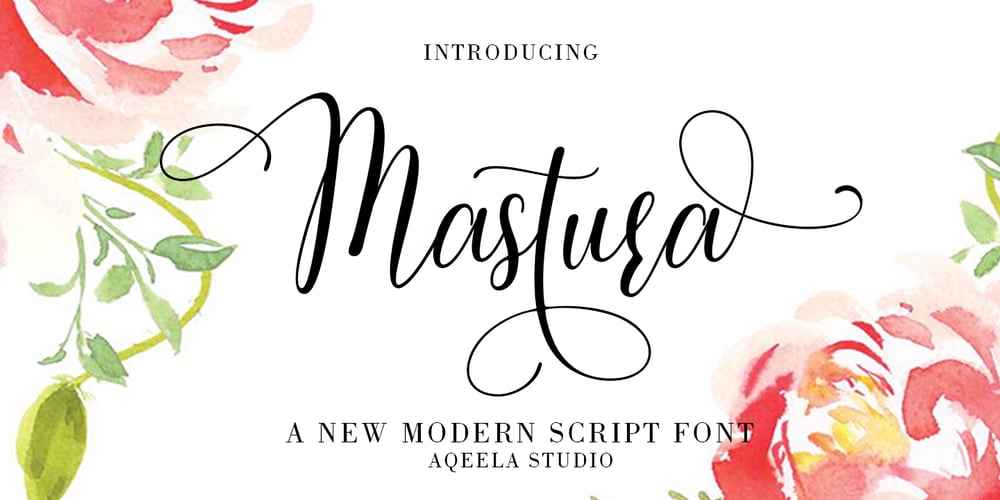
Mastura Font Family was designed by Muhammad Nasir and published by Aqeela Studio. Mastura contains 1 styles and family package options. WELCOME ! New Mastura Script Font. This is modern sleek typography with a delicious flow. Mastura Script features alternative characters, including a start, end, and terminal binding, and International support for most Western languages is included. This one will instantly make your designs professional and jaw-dropping! Become the perfect professional in a minute and start creating modern designs like ads, sales, logos, brands, posters, social media text overlays today! To activate the Stylistic OpenType alternative, you need a program that supports OpenType features such as Adobe Illustrator CS, Adobe Indesign & CorelDraw X6-X7, Microsoft Word 2010 or later. and there are additional ways to alternate / swash, using Character Map (Windows), Nexus Fonts (Windows), Font Book (Mac) or a software program such as PopChar (for Windows and Mac). How to access all alternative characters using Adobe Illustrator:https://www.youtube.com/watch?v=XzwjMkbB-wQThank you for your purchase!